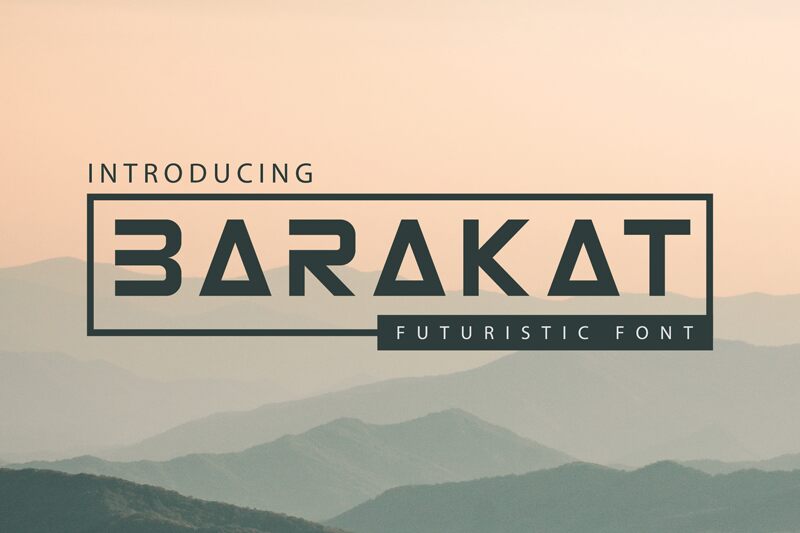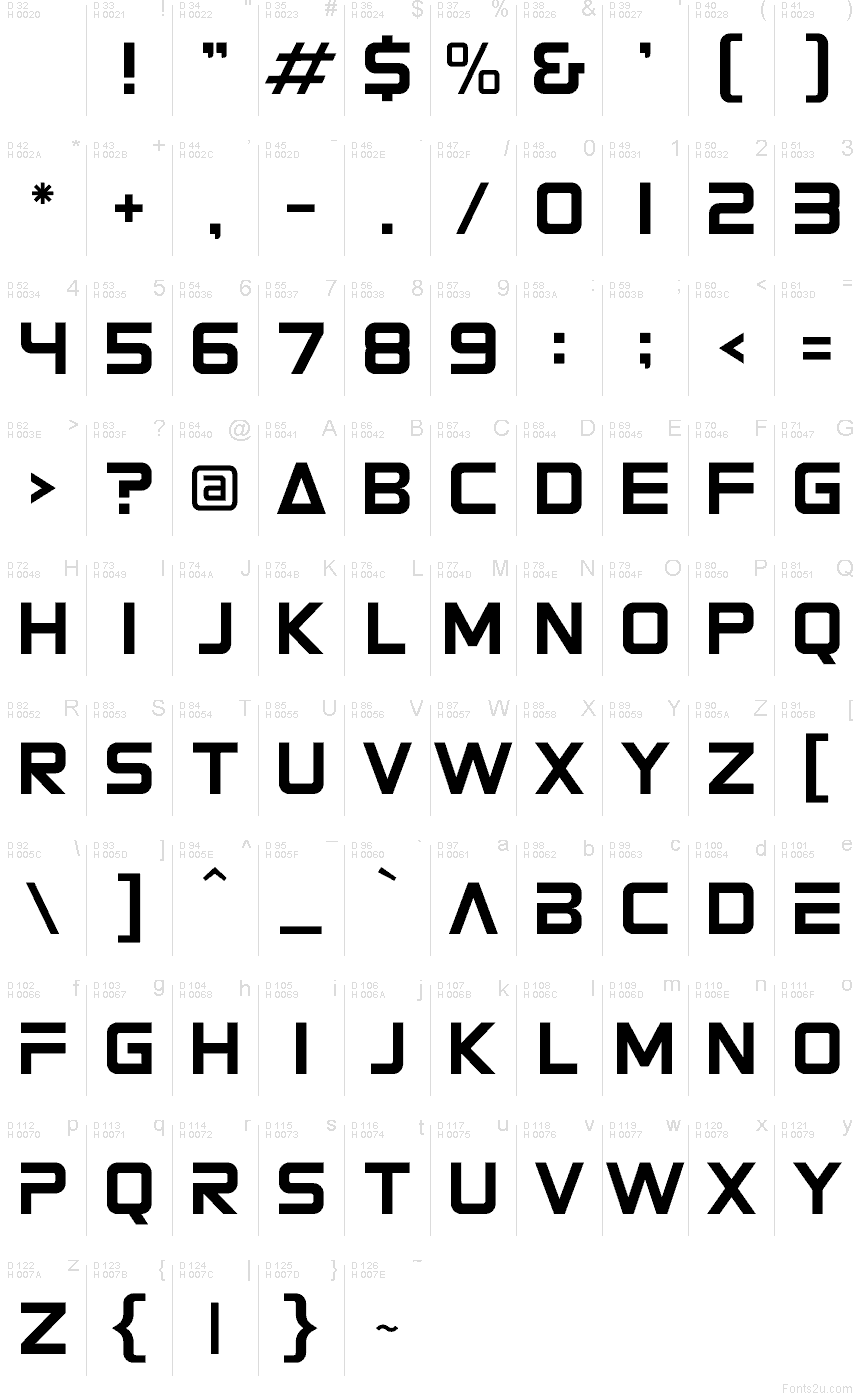
Barakat
Barakat font by Muhammad Nugraha of Denu Studios hits with chunky, geometric heft and sharp, cut-in gaps that make the letters feel engineered—like they were milled from black acrylic. It’s a free modern sans serif font, and the typeface’s stencil-ish breaks add rhythm and airflow without losing that bold, blocky punch.
Using Barakat, those crisp slices keep big words readable on posters, esports or streetwear logos, tech event titles, album covers, packaging stamps, and punchy social headers. Set it a touch loose so the cutouts don’t crowd, then pair it with a clean, quiet neo-grotesk for body text—this free font does the shouting.